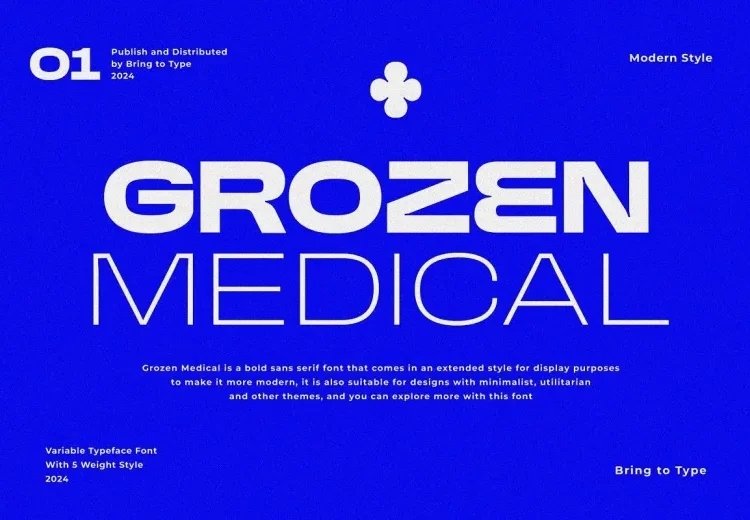
Grozen Medical Font
Grozen Medical is a striking sans-serif font with an extended style, perfect for display purposes and modern design needs. Its clean lines and minimalist approach make it an excellent choice for projects with a utilitarian or contemporary theme.
This versatile font enhances various designs with its modern aesthetic, making it suitable for everything from medical documentation to sleek branding materials.